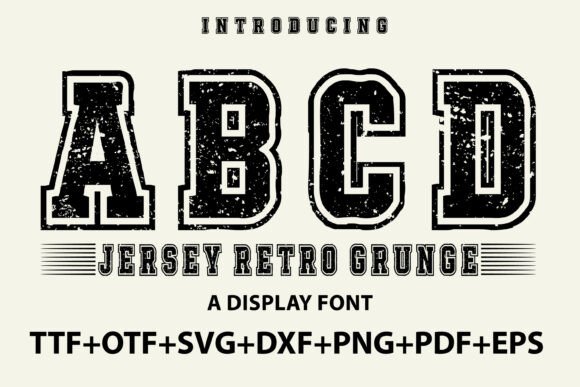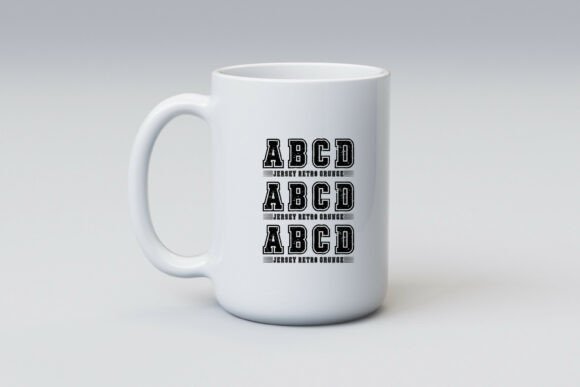
Jersey Retro Grunge Font
Presenting Jersey Retro Grunge – the defining voice of sporty aesthetics bound to make a lasting impression. This exceptional varsity-style sports font bears a distinct grunge character, rough around the edges, perfect for giving football jerseys, team logos, athletic gear, and energetic sports-focused design an extra edge. With versatility as its strength, Jersey Retro Grunge excels in platforms like Cricut, Silhouette, and t-shirt printing. Exhibiting a bold display style, this is the quintessential choice for championship branding, personalized lettering, and athletic wear design. Comprehensive in nature, this powerhouse font caters to all design needs with uppercase letters, numbers, and symbols in both OTF and TTF formats. Jersey Retro Grunge, the epitome of sport-inspired typography, is an indispensable asset modern sport designers shouldn’t be without.